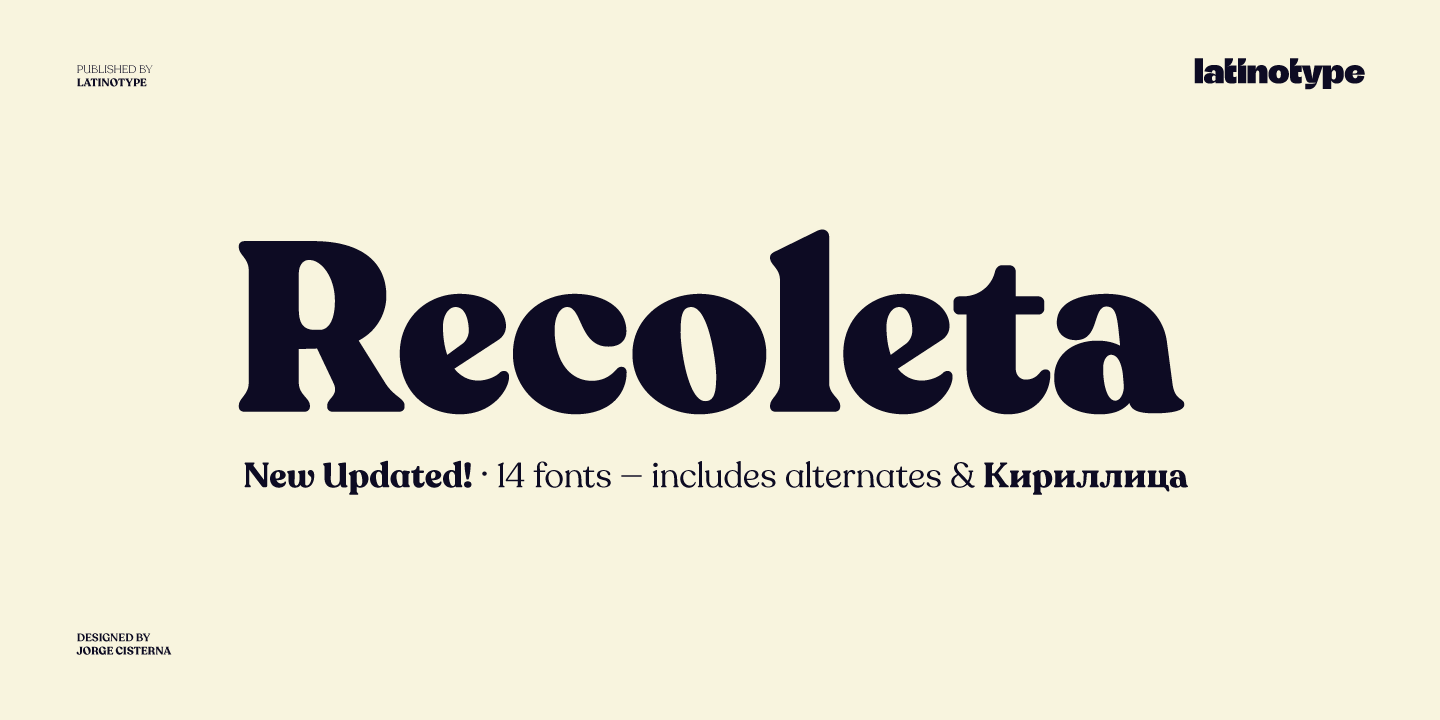
Recoleta Font is an excellent choice for projects demanding both elegance and readability. Picture it as the sophisticated headline for a fashion magazine, the clean and authoritative body text for a luxury brand's website, or adding a touch of classic charm to a historical documentary's titles. Its refined serifs make it ideal for print media, such as book covers, editorial layouts, and high-end brochures. It also shines in branding where a sense of heritage, craftsmanship, or established quality is desired, and it can elevate invitations and packaging design.
What makes Recoleta Font truly exciting is its ability to blend timeless classicism with a contemporary feel. It’s a serif typeface that feels both familiar and fresh, avoiding any sense of being dated. The careful balance of its robust serifs and open counters ensures exceptional legibility even in smaller sizes, while its distinct character gives it a unique voice when used prominently. Designers appreciate its refined proportions and the subtle details that contribute to its overall sophistication. This isn't just a font; it's a design tool that brings gravitas and beauty to any visual communication.
The Recoleta Font family is typically quite comprehensive, providing a wide array of weights and styles to suit diverse design requirements. You can generally expect to find a range from delicate Light or Thin weights, perfect for elegant and understated applications, to a sturdy Bold or Black, ideal for strong statements and impactful headlines. Many Recoleta Font families also include corresponding Italic versions for each weight, which significantly expands its versatility for creating visual hierarchy and adding emphasis within your text. This extensive selection allows for remarkable creative control and ensures that you can achieve the perfect typographic tone for any project. Don't miss out on Recoleta Font Free Download for your next design endeavor!